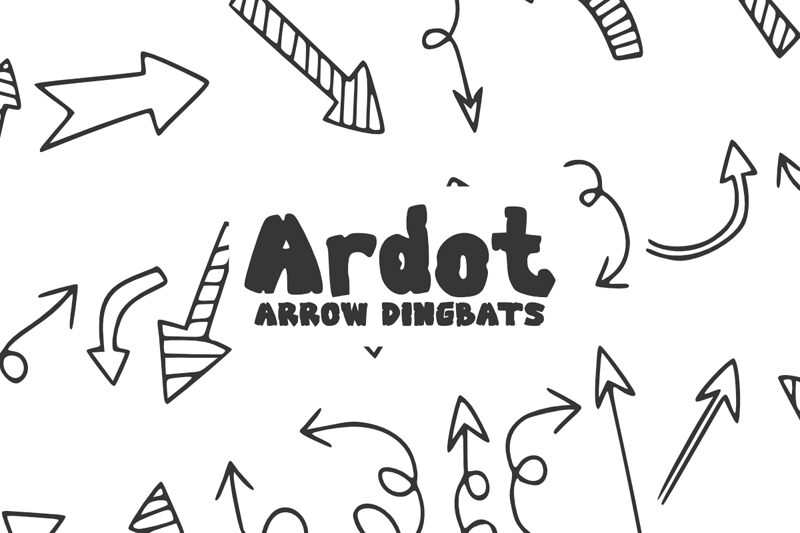
Ardot
Ardot, designed by Muhammad Yafinuha, is not your everyday typeface. This innovative arrows dingbats font infuses projects with a dynamic edge, seamlessly guiding the viewer’s eye across the visual landscape. Ideal for interactive designs, wayfinding systems, and creative infographics, Ardot offers designers a playful yet functional toolkit to elevate their work.
Its array of arrow styles ensures versatility for digital interfaces or print materials that demand intuitive navigation cues. With Ardot, your designs will not just be seen—they'll point the way forward.